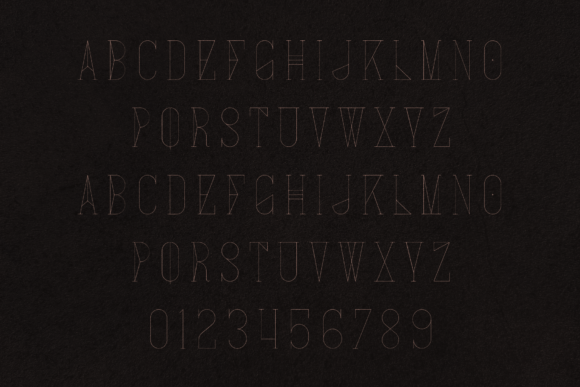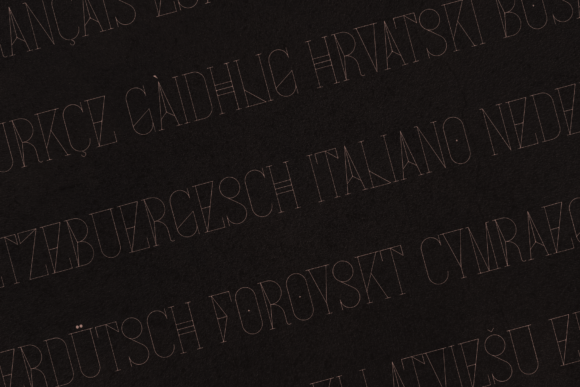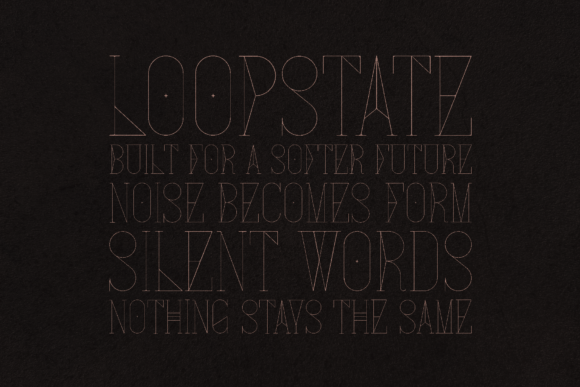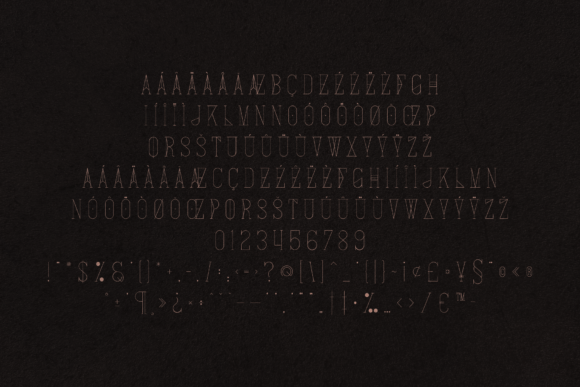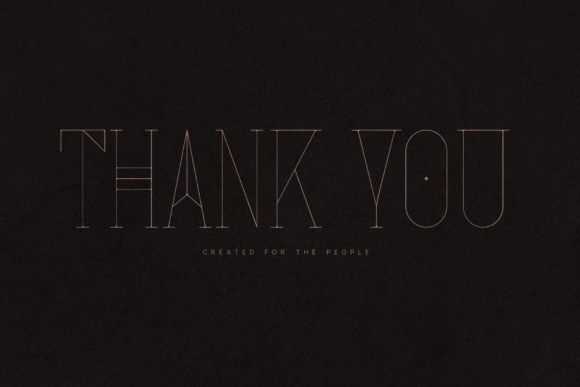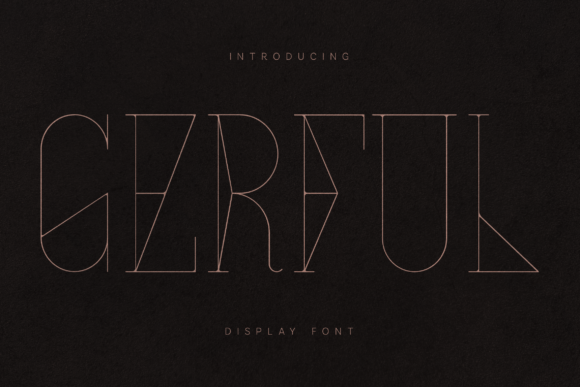
Introducing Gerful Font: A Timeless Art Deco Display Typeface
Gerful Font is a stunning display typeface that embodies the elegance and sophistication of the Art Deco era. Inspired by the geometric precision and vertical rhythm of classic 1920s-1930s typography, Gerful is a refined and modern take on a vintage style. This beautiful font is perfect for designers and crafters looking to add a touch of luxury and glamour to their projects.
The Art Deco Inspiration
Gerful Font is deeply rooted in the Art Deco movement, which emerged in the 1920s and flourished until the 1940s. Characterized by its use of geometric shapes, metallic materials, and ornate decorations, Art Deco typography was all about opulence and sophistication. Gerful Font captures the essence of this iconic style, with its thin monoline strokes, architectural shapes, and sharp triangular cuts.
Gerful Font boasts a range of design characteristics that make it perfect for luxury and editorial design. Its tall proportions and refined structure create a sophisticated and cinematic atmosphere, evoking the grandeur of old Hollywood. The font’s monoline strokes are thin and elegant, while the geometric constructions inside letters add a touch of visual interest. The result is a font that feels both vintage and modern, perfect for designers looking to create stunning headlines and large typography.
Balancing Minimalism with Decorative Details
One of the standout features of Gerful Font is its ability to balance minimalism with decorative details. The font’s clean lines and simple shapes are offset by subtle geometric constructions inside letters, which add a touch of visual interest without compromising readability. This makes Gerful Font perfect for use in headlines and large typography, where clarity and legibility are essential.
Perfect for Luxury and Editorial Design
Gerful Font is specifically designed for luxury and editorial design, making it perfect for a range of applications. From high-end fashion magazines to luxury brand advertising, Gerful Font is the perfect choice for designers looking to create sophisticated and eye-catching typography. Its elegant and refined structure makes it ideal for use in:
- Luxury brand advertising
- Fashion magazines and editorials
- High-end product packaging
- Cinematic titles and movie posters
- Editorial design and publishing
What Makes Gerful Font Stand Out?
So what sets Gerful Font apart from other display typefaces? Here are just a few of its standout features:
- Geometric precision: Gerful Font is built with geometric precision, giving it a clean and modern feel.
- Elegant vertical rhythm: The font’s vertical rhythm is elegant and refined, creating a sophisticated atmosphere.
- Thin monoline strokes: Gerful Font’s thin monoline strokes are reminiscent of classic Art Deco typography.
- Subtle geometric constructions: The font’s subtle geometric constructions inside letters add visual interest without compromising readability.
Gerful Font is a stunning display typeface that is perfect for designers and crafters looking to add a touch of luxury and glamour to their projects. With its Art Deco inspiration, elegant design characteristics, and balance of minimalism and decorative details, Gerful Font is the perfect choice for luxury and editorial design. Whether you’re creating headlines, large typography, or cinematic titles, Gerful Font is sure to impress.